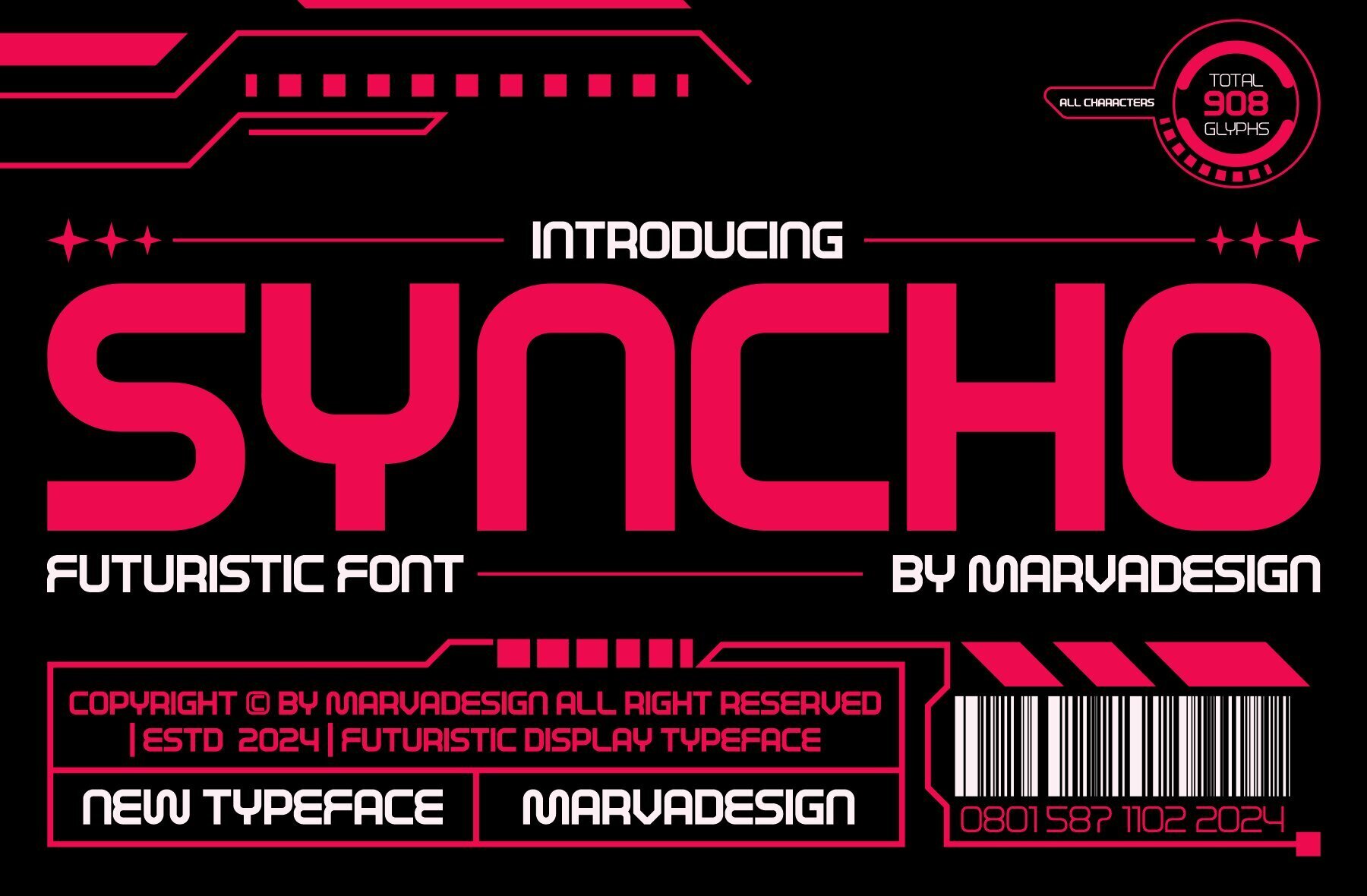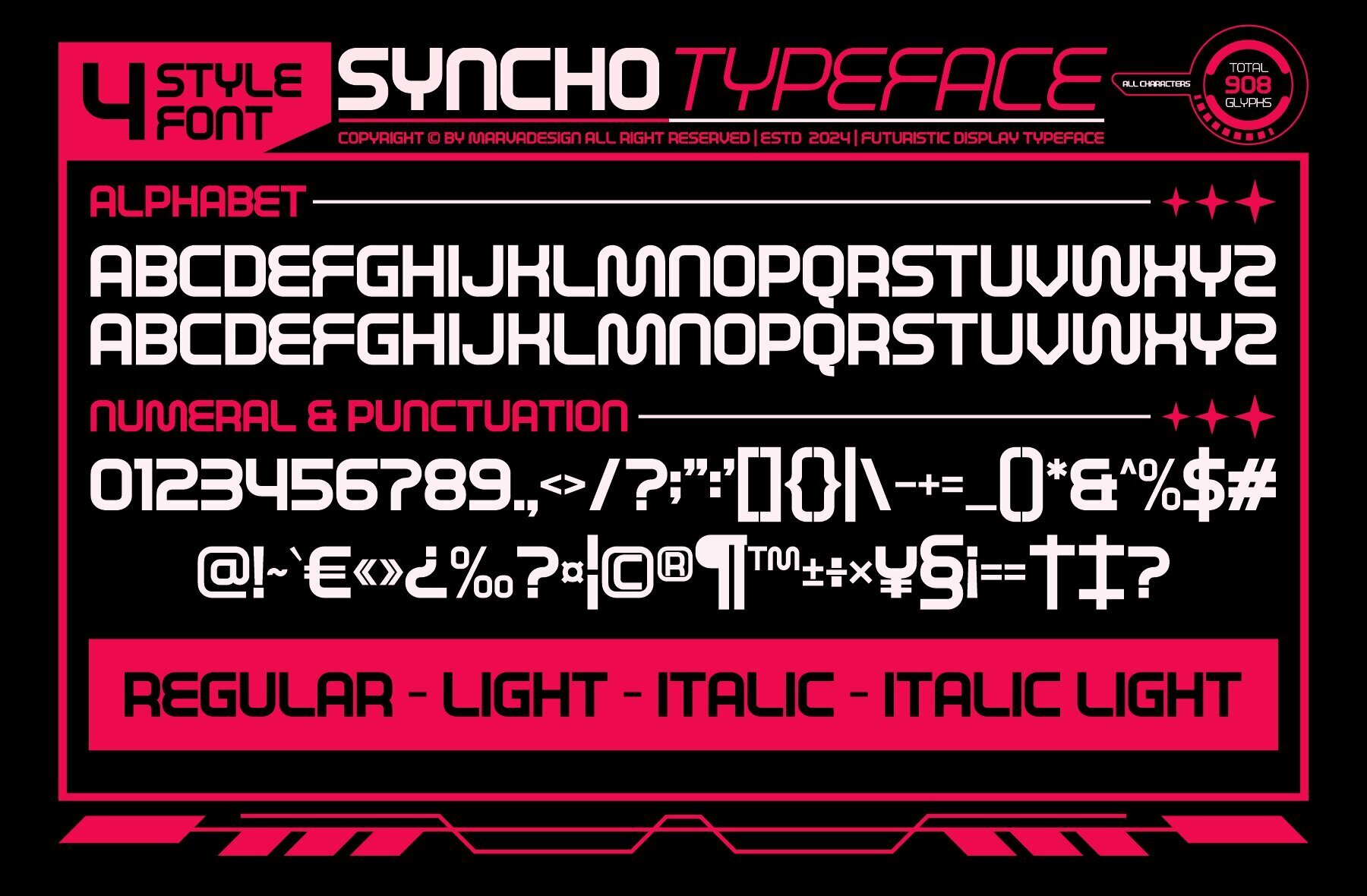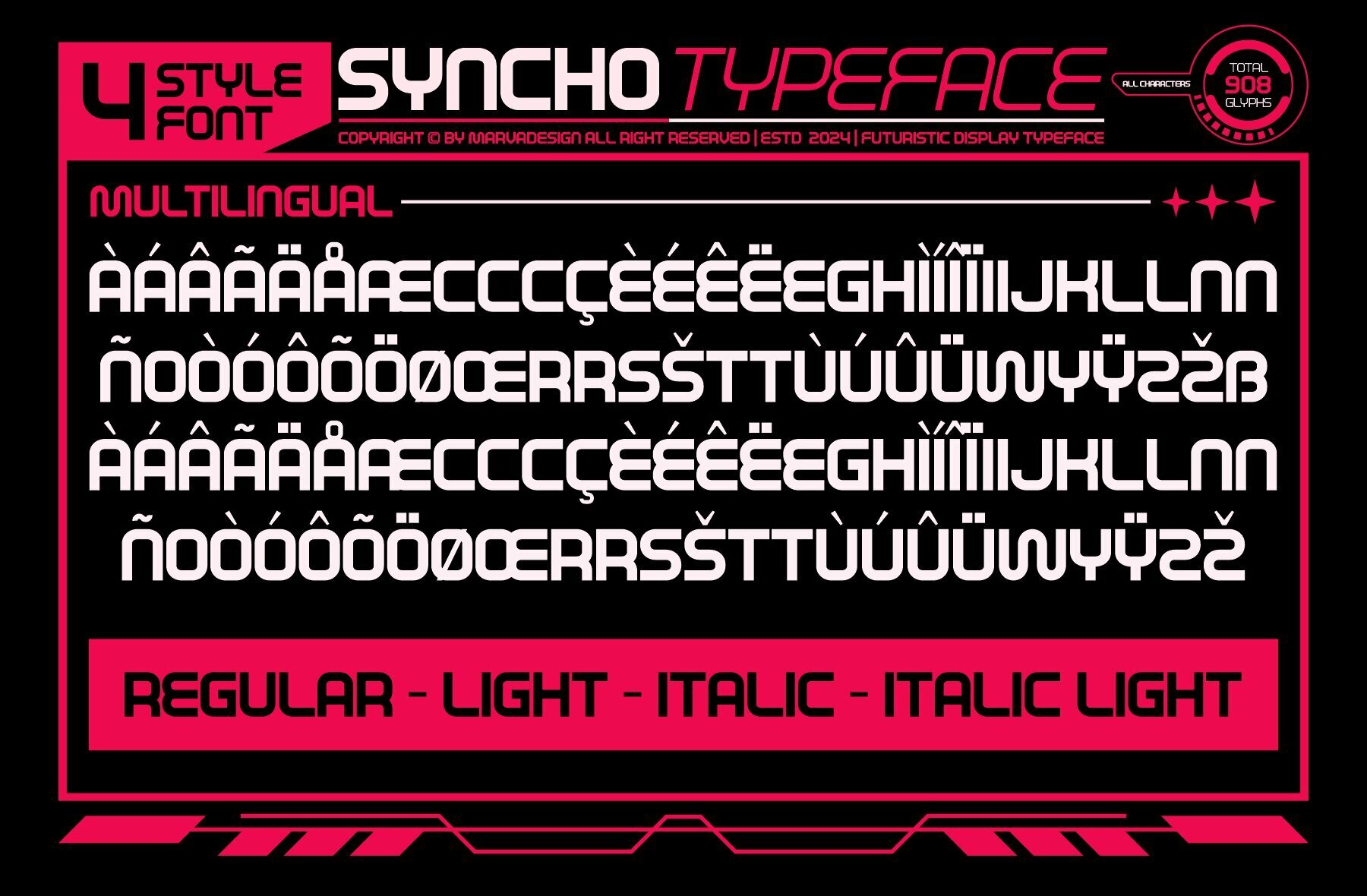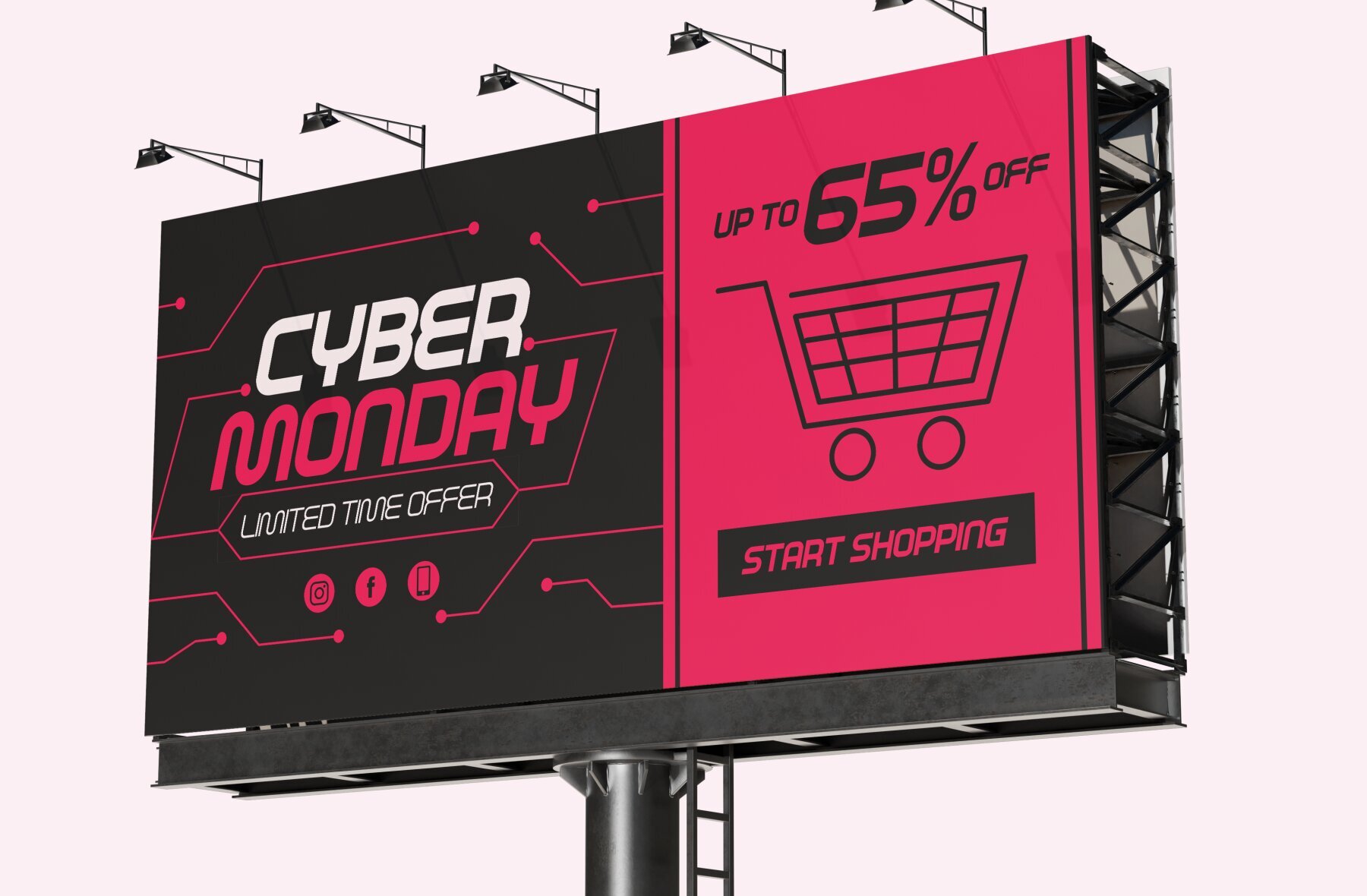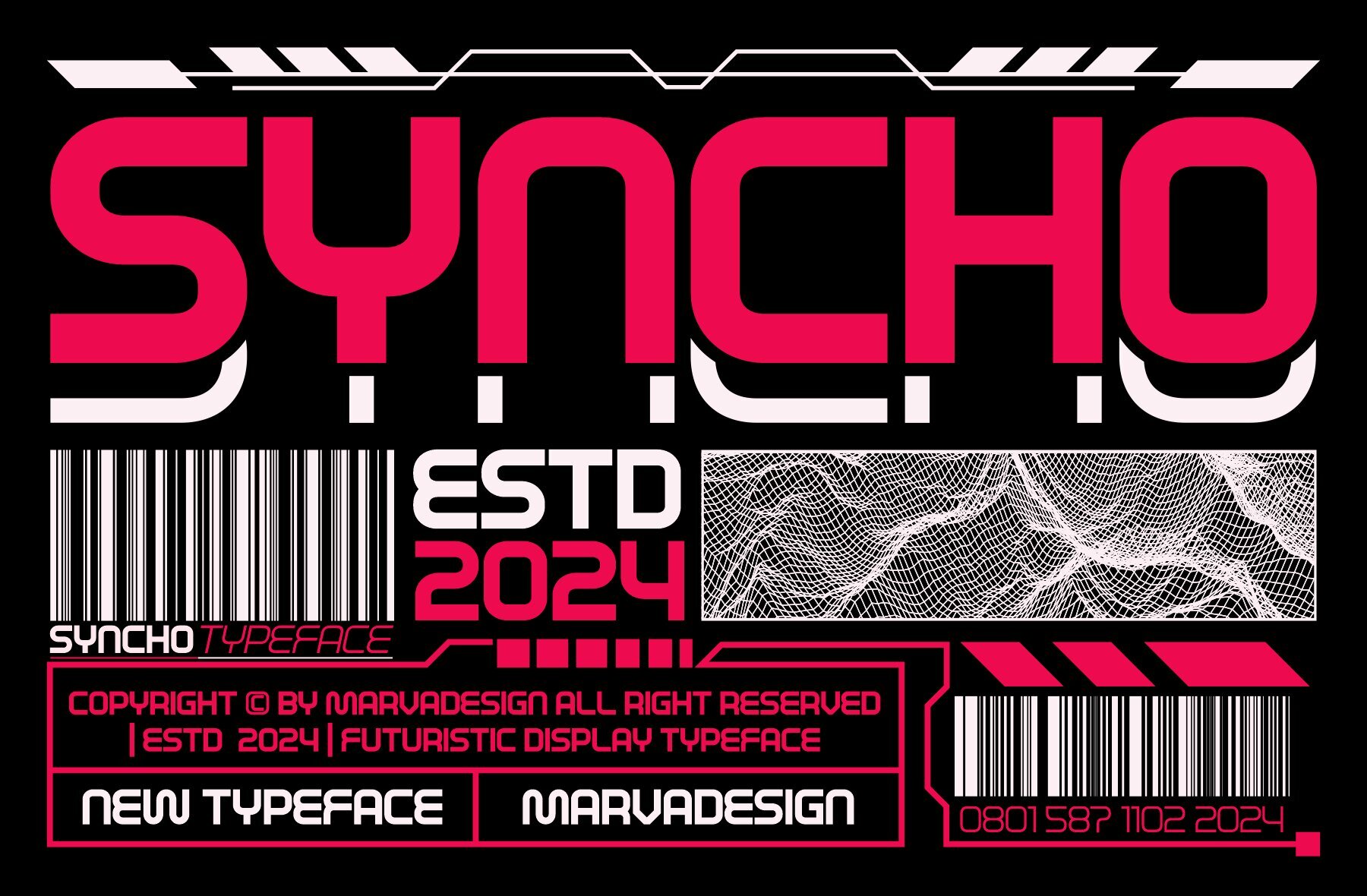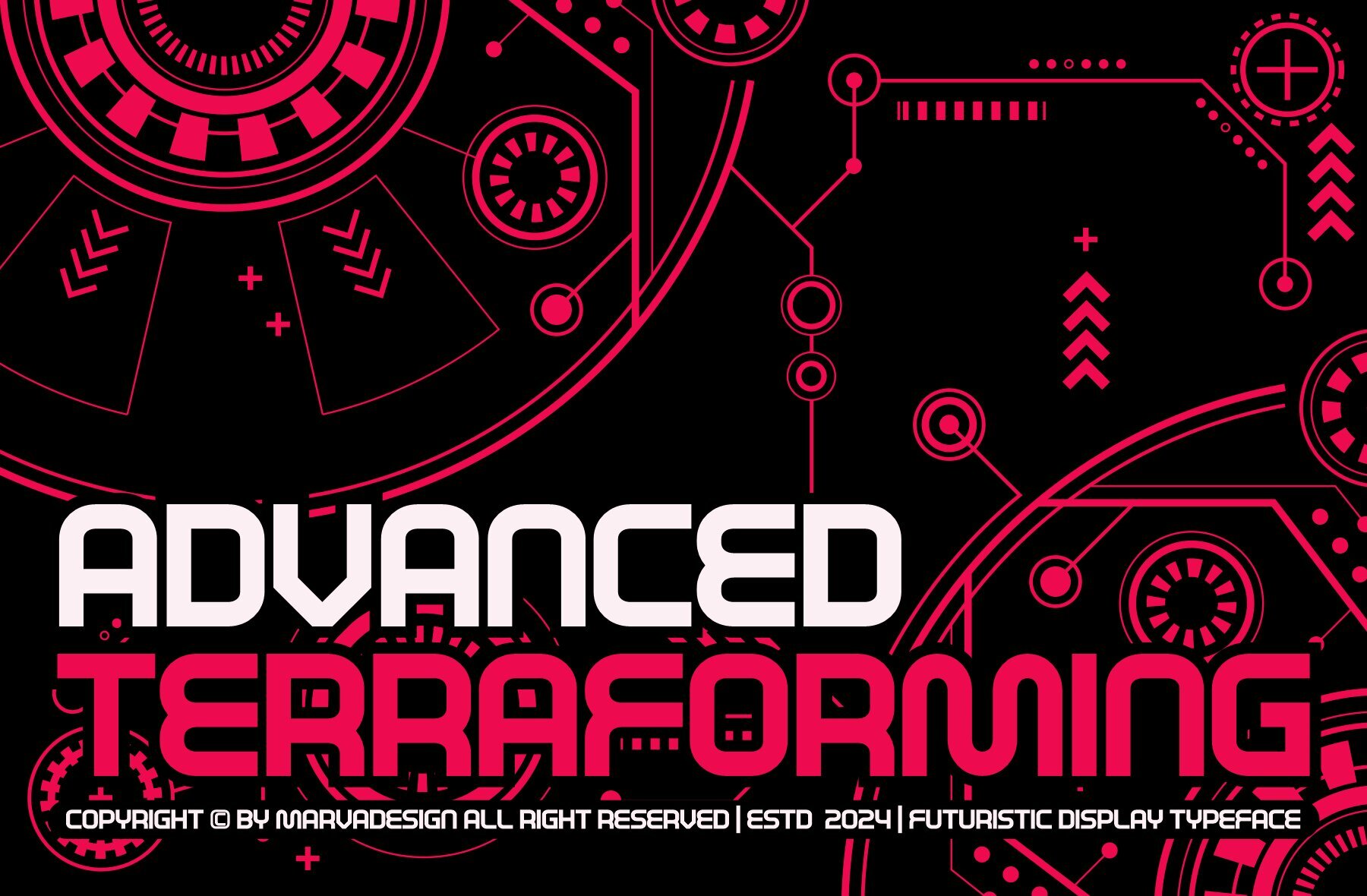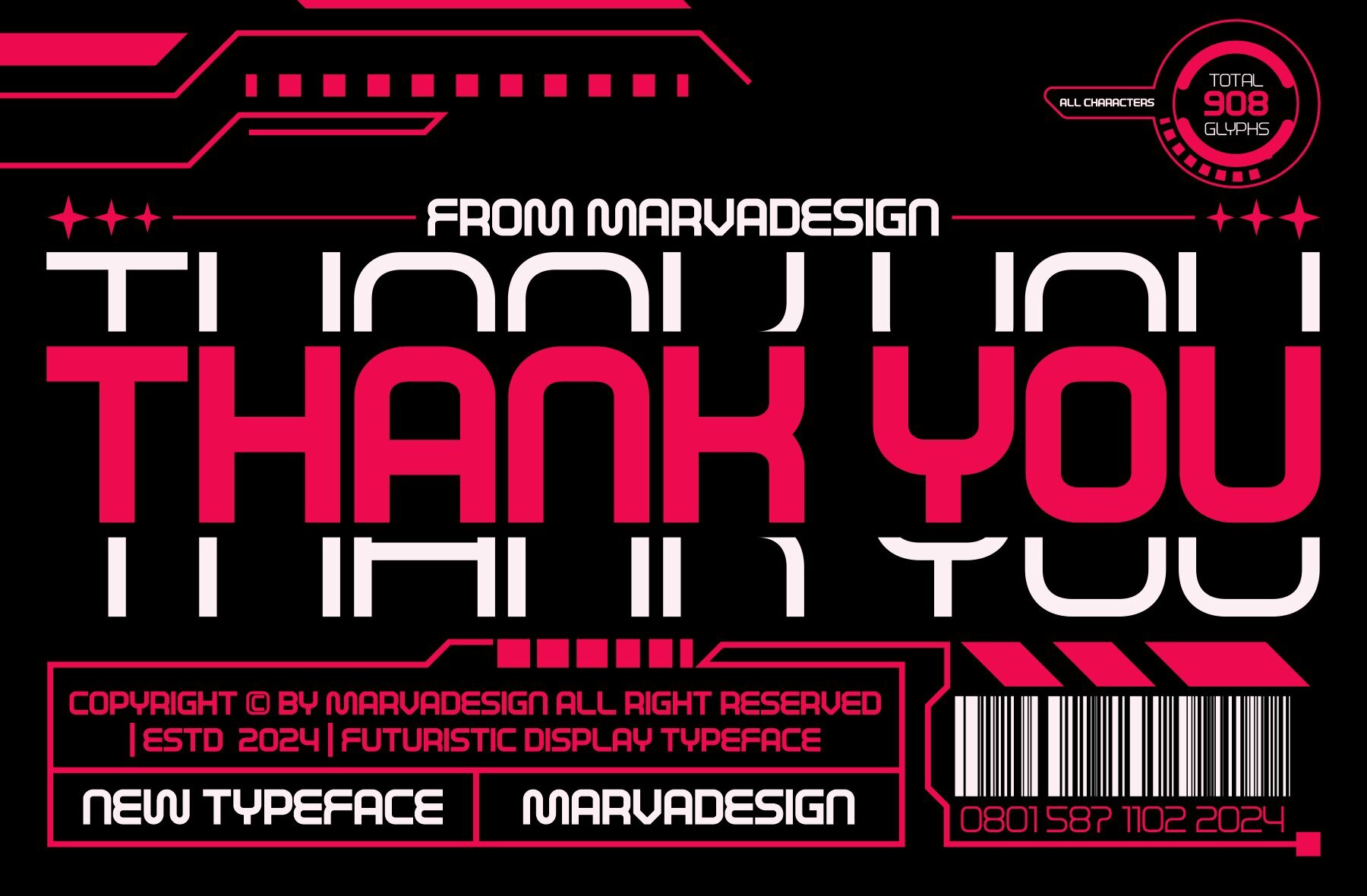
Syncho Font
Syncho Font by Marvadesign offers a sleek and modern aesthetic perfect for contemporary projects. Its futuristic design makes it an ideal choice for branding tasks, including logos, templates, and product designs, ensuring it stands out in diverse applications.Syncho: A Modern Futuristic Display Font